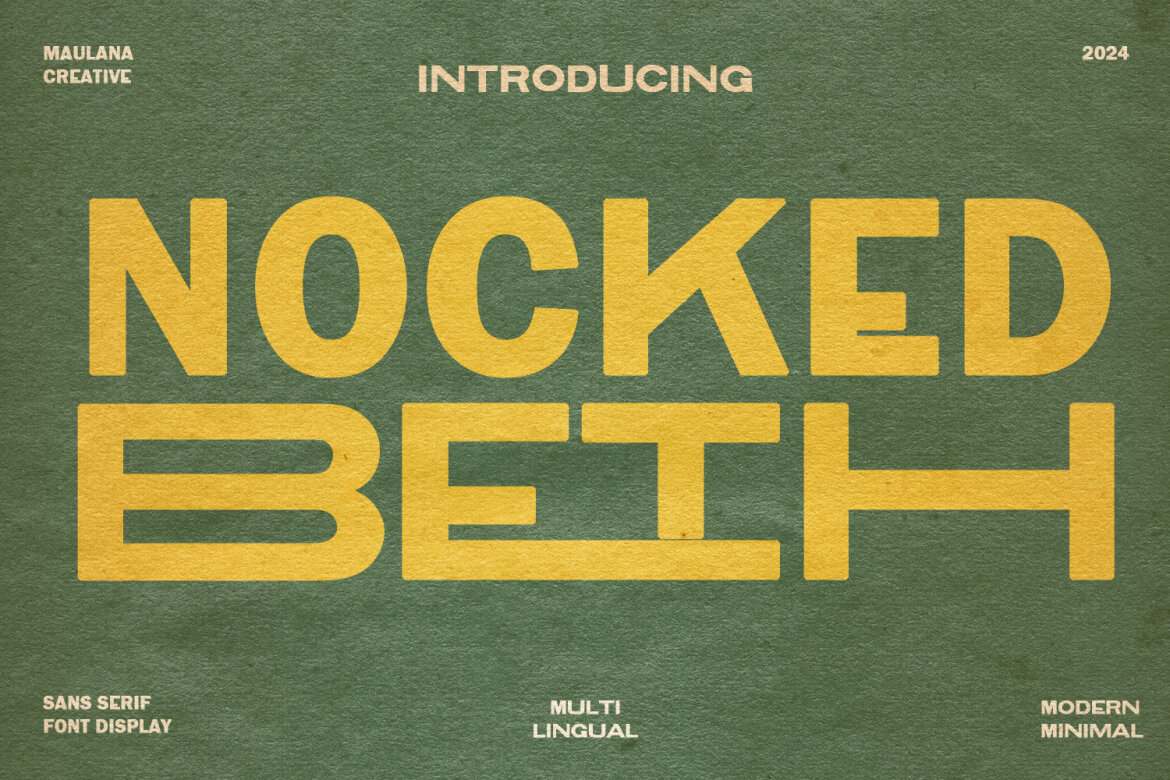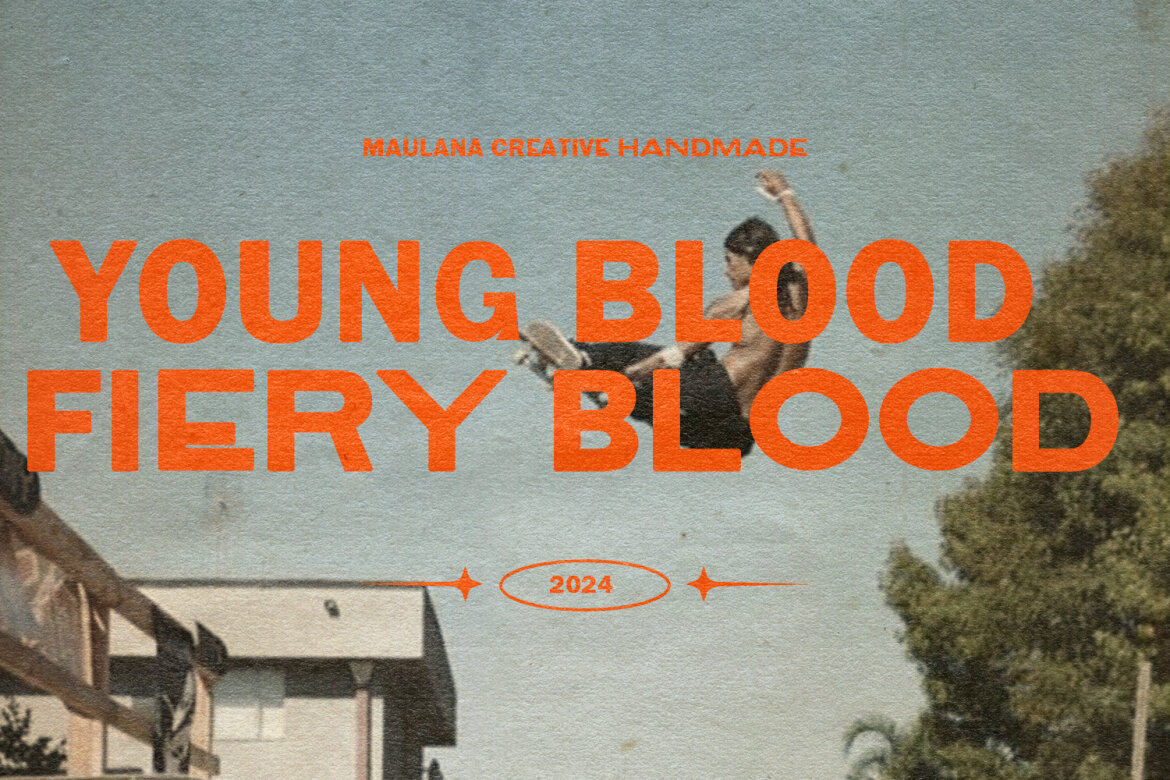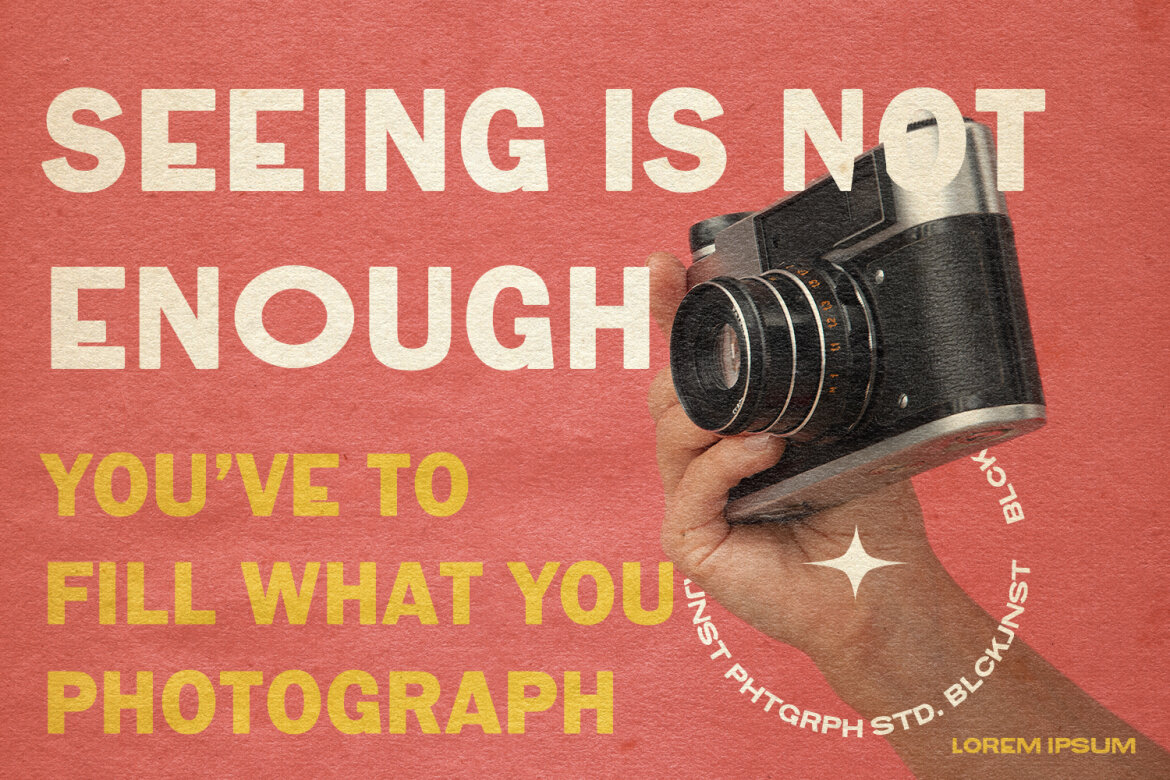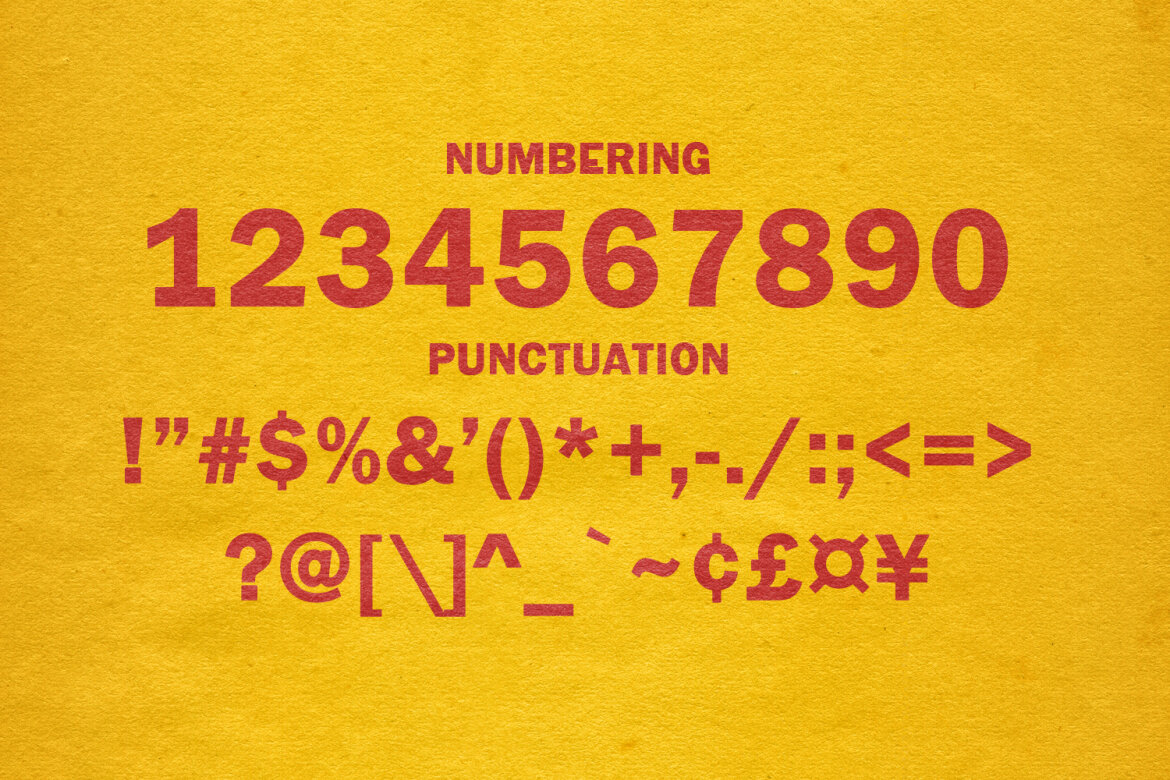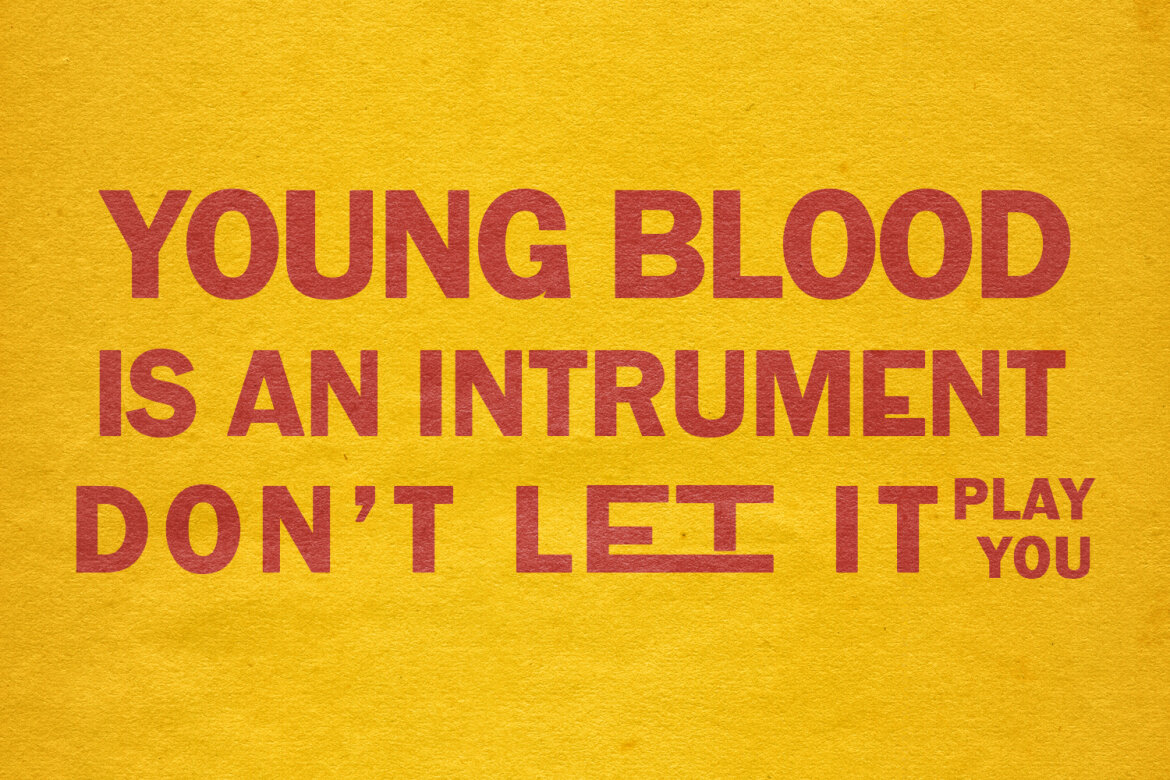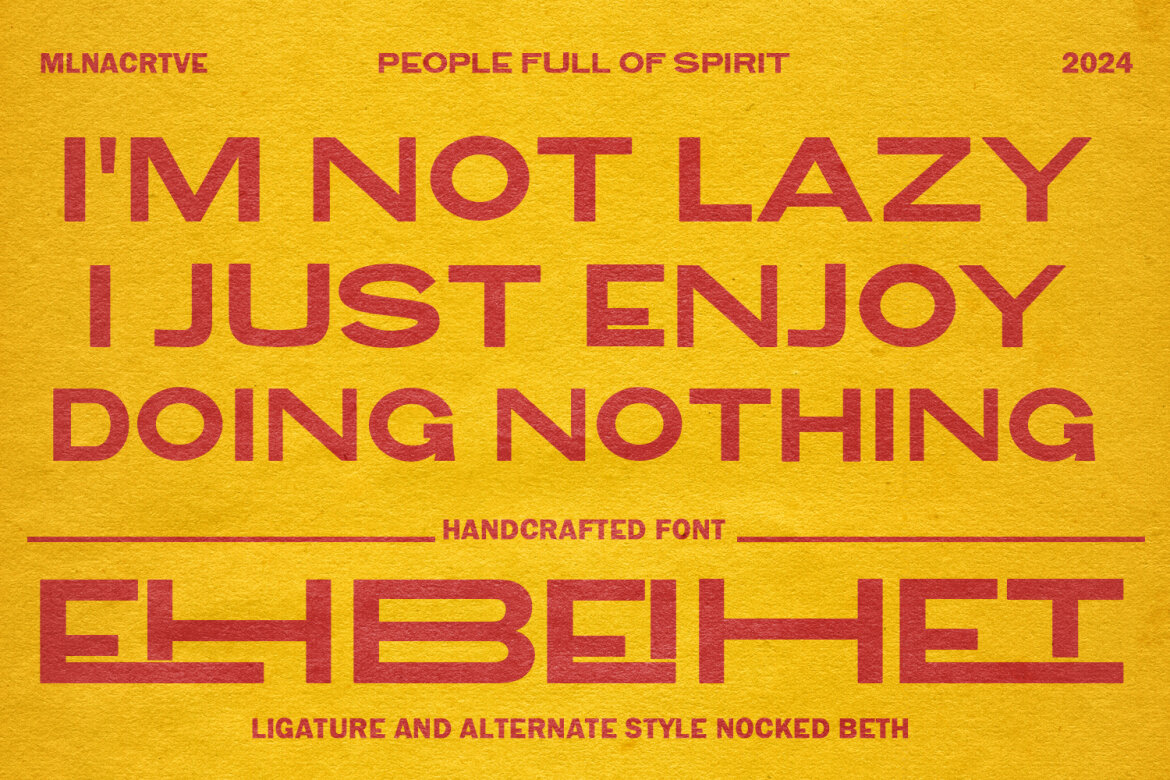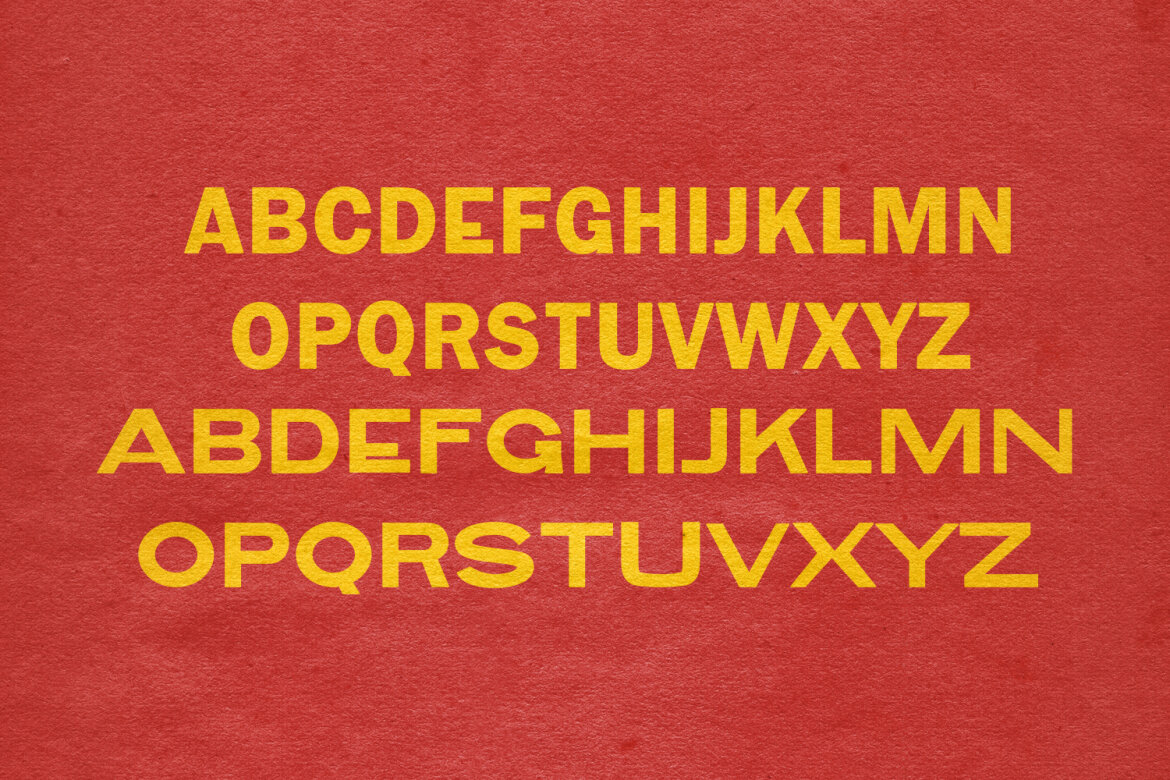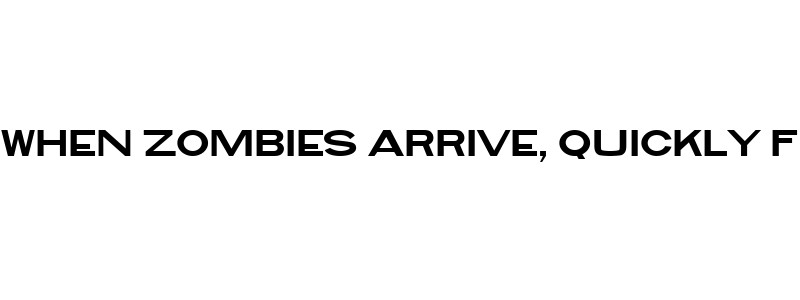
Nocked Beth Minimal FREE Font
Nocked Beth
Nocked Beth is a modern minimal sans serif display font. With bold stroke, fun character with some of ligature and alternate. To give you an extra creative work. Nocked Beth Display font support multilingual more than 100+ language. This font is good for logo design, Social media, Movie Titles, Books Titles, a short text even a long text letter and good for your secondary text font with script or signature typeface. Make a stunning work with Nocked Beth modern minimal sans serif display font.